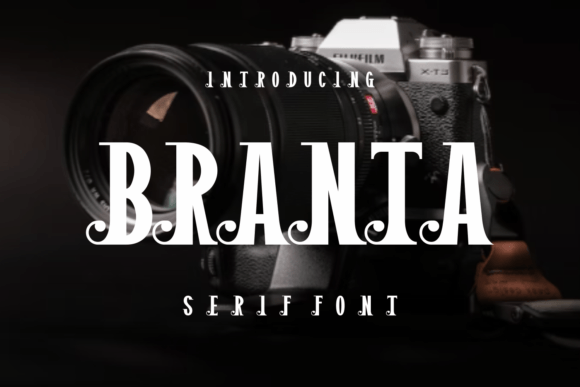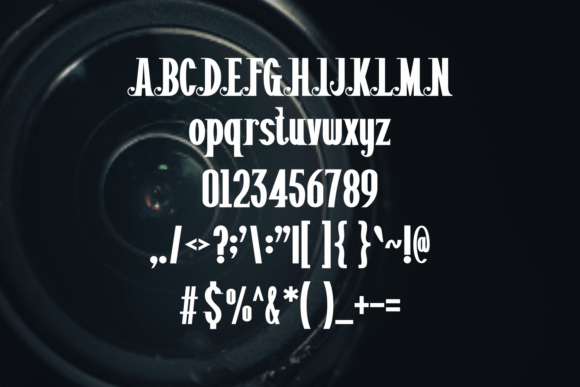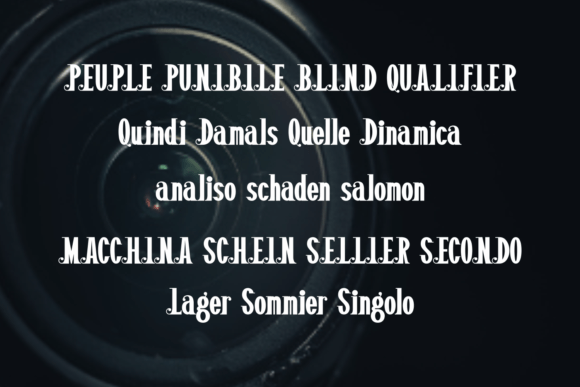
Introducing Branta Font: Elevate Your Design with Elegance and Sophistication
In the world of typography, a font can make or break the visual appeal of a design. For designers and crafters looking to add a touch of elegance and class to their projects, Branta Font is an excellent choice. This beautiful serif font boasts smooth curves and sharp lines, making it perfect for formal occasions and high-end branding. With its classic charm, Branta Font is sure to make your text stand out and leave a lasting impression.
The Characteristics of Branta Font
Branta Font is a serif font that exudes sophistication and refinement. Its smooth curves and sharp lines create a beautiful contrast that adds depth and visual interest to any design. The font features classic serifs, which provide a sense of tradition and timelessness, making it ideal for use in high-end branding, luxury packaging, and formal events.
Perfect for Formal Occasions and High-End Branding
Branta Font is specifically designed to make a statement. Its elegant and classy appearance makes it perfect for use in:
- Luxury packaging and branding
- Formal events and galas
- High-end fashion and beauty branding
- Corporate branding and marketing materials
Why Choose Branta Font?
With so many fonts available, why choose Branta Font? Here are just a few reasons why designers and crafters love this elegant serif font:
- Unique and distinctive: Branta Font has a unique and distinctive appearance that sets it apart from other serif fonts.
- Versatile: Branta Font can be used in a variety of design applications, from print to digital.
- Easy to read: The font features clear and legible lettering, making it easy to read and understand.
- Customizable: Branta Font can be customized to fit your specific design needs, including adjusting font sizes, colors, and styles.
Tips for Using Branta Font
To get the most out of Branta Font, here are a few tips to keep in mind:
- Pair with contrasting fonts: Pair Branta Font with contrasting fonts to create visual interest and add depth to your design.
- Use in combination with images: Use Branta Font in combination with images to create a beautiful and cohesive design.
- Experiment with colors: Experiment with different colors and textures to add an extra layer of sophistication to your design.
Branta Font is a beautiful and elegant serif font that is perfect for designers and crafters looking to add a touch of sophistication and refinement to their projects. With its smooth curves and sharp lines, classic charm, and versatility, Branta Font is sure to make your text stand out and leave a lasting impression. Whether you’re designing for formal occasions or high-end branding, Branta Font is an excellent choice.